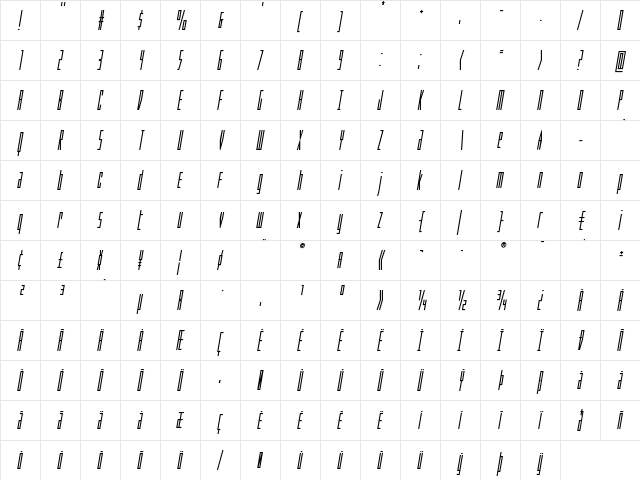
Design Context for Phantacon Compact Bold Italic Typeface
Phantacon Compact Bold Italic takes a measured approach to typography — its balanced proportions and neutral character make it a reliable workhorse for both digital and print work. The dynamic lean of this cut emphasises speed and emphasis in any layout. The heavy weight commands attention and anchors typographic hierarchies. The condensed width makes it efficient for tight spaces without sacrificing legibility.
Pro Tip: Use Phantacon Compact Bold Italic for emphasis, pull quotes, and subheadings where its slanted energy can add rhythm to the layout.